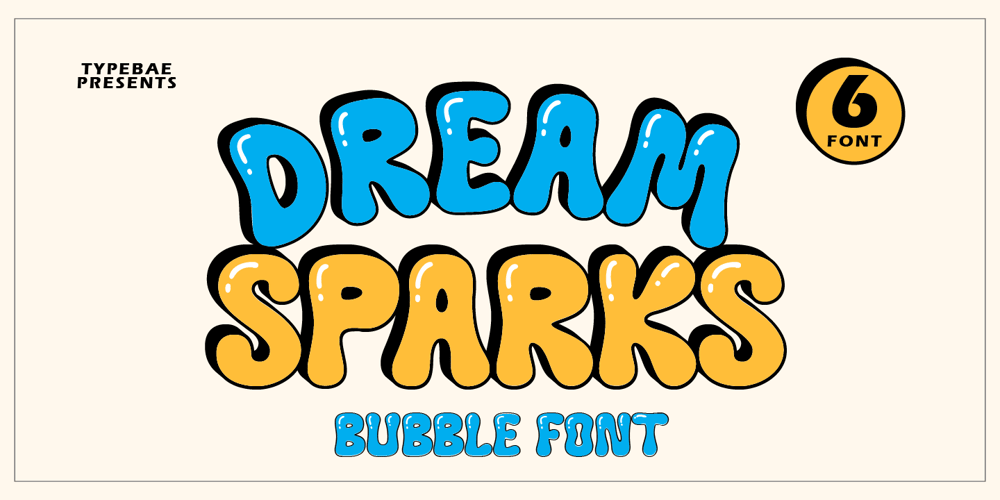
Dream Sparks Bubble Font Family was designed by Iqbal Pauji and published by Typebae. Dream Sparks Bubble contains 6 styles and family package options. Dream Spark Bubble Font is a bubble font with a lively appearance that will fill your designs with cheerfulness! It’s great for covers, posters, spring designs, marketing materials, and anything that needs to stand out!What Includes? Uppercase and Numeral Punctuation Multilingual PUA Encoded